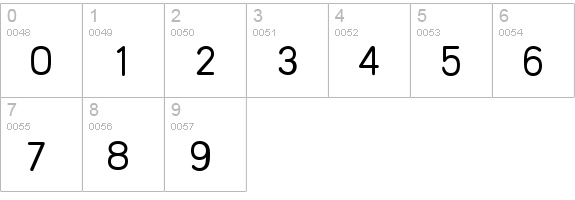
Mercedes-Light is a refined, elegant variant in the Mercedes typeface family \xE2\x80\x94 well suited to elegant body text, refined sub-headings, and luxury branding.
Mercedes-Light is a sleek and elegant font that exudes sophistication and modernity. With its clean lines and stylish curves, this typeface is perfect for adding a touch of class to any design project. The light weight of the font gives it a delicate and airy appearance, making it ideal for use in headings, titles, and other prominent text elements. What makes Mercedes-Light even more appealing is that it is available for free download at FontsMarket.com. This means that you can easily access this beautiful font and use it in your projects without any cost. Whether you're designing a website, creating a brochure, or working on a branding project, Mercedes-Light is a versatile and stunning font choice that will elevate your work to the next level.